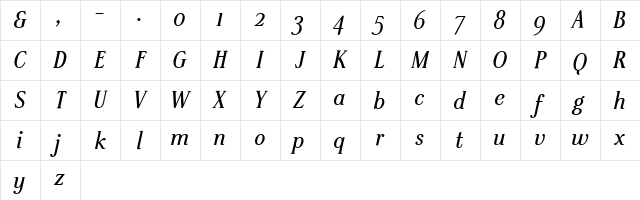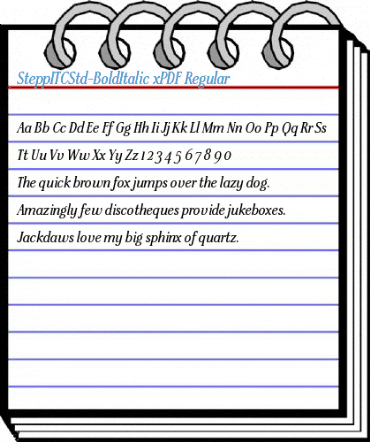
Complete SteppITCStd-BoldItalic xPDF Regular glyph index. Displaying only characters natively supported by SteppITCStd-BoldItalic xPDF Regular font.
SteppITCStd-BoldItalic xPDF is a composed and adaptable typeface that performs quietly and consistently across a wide range of design contexts. The slanted form adds forward momentum and visual energy. Its bold stroke weight gives it real presence on the page.
Pro Tip: Use SteppITCStd-BoldItalic xPDF for emphasis, pull quotes, and subheadings where its slanted energy can add rhythm to the layout.